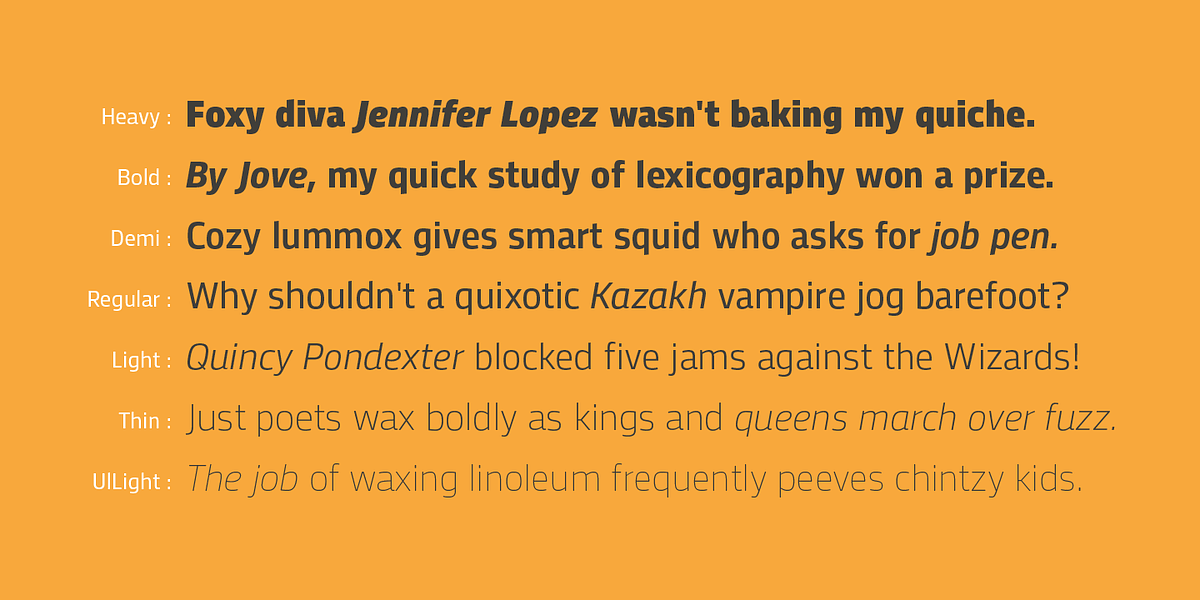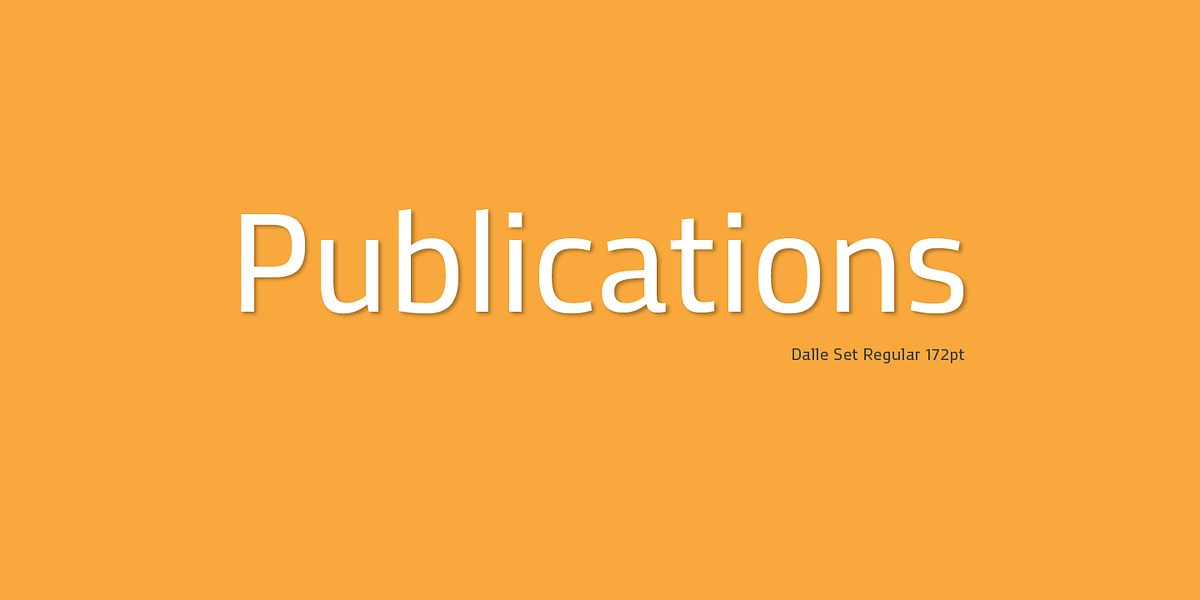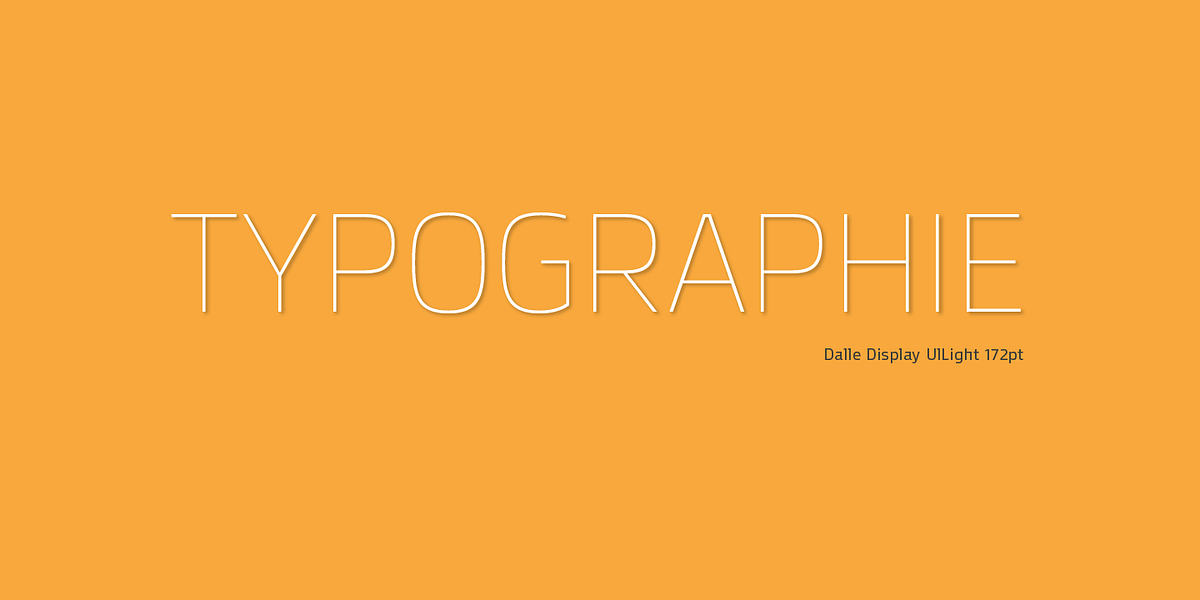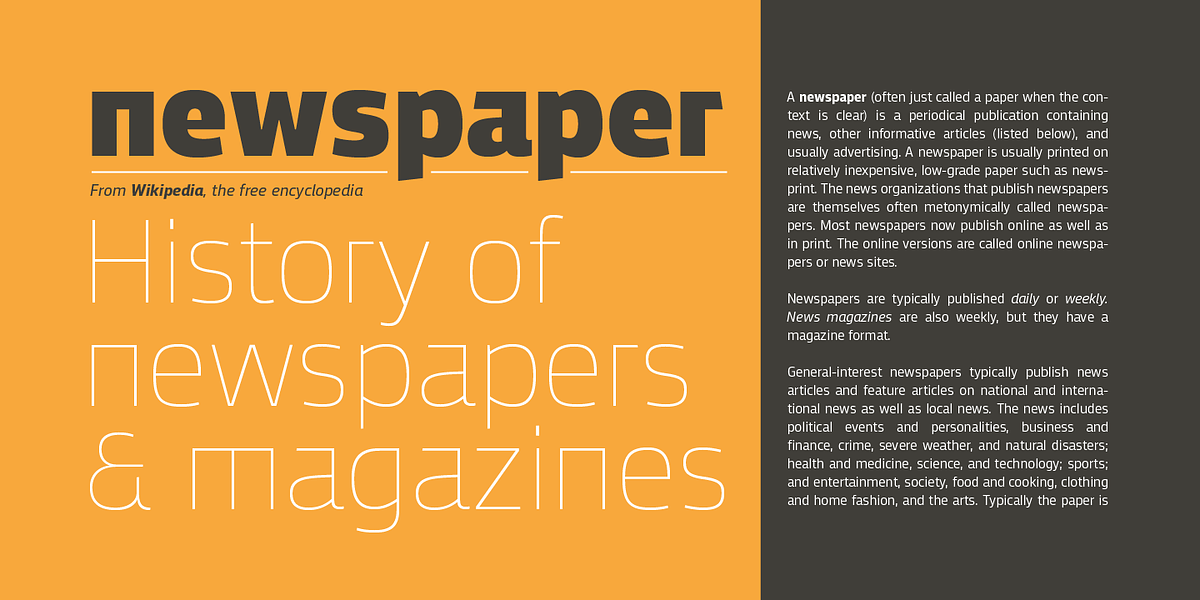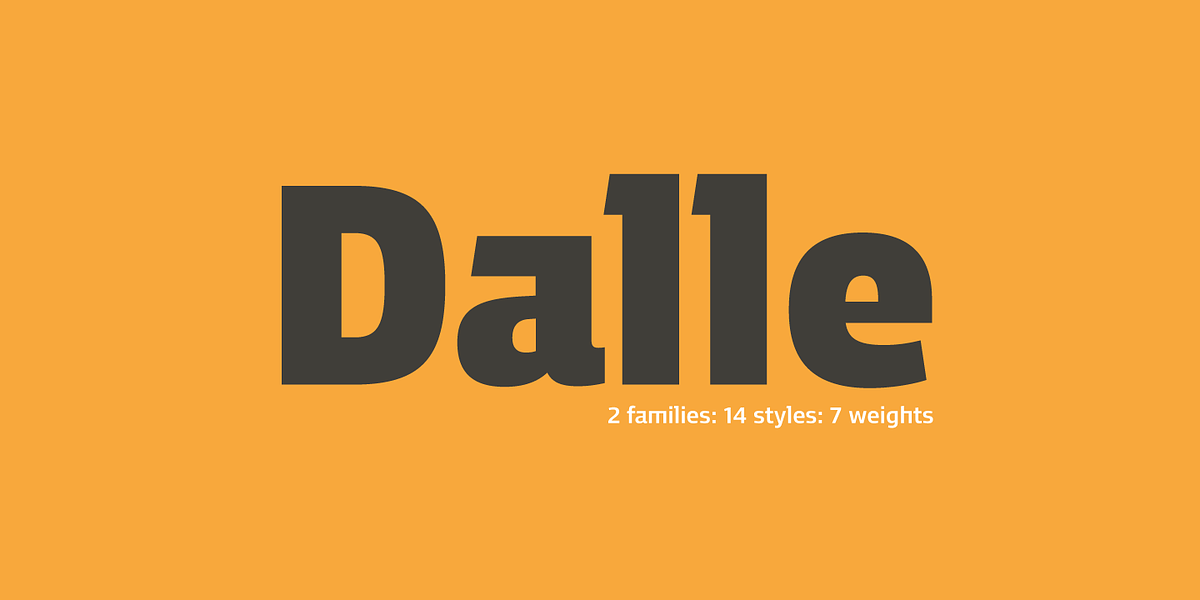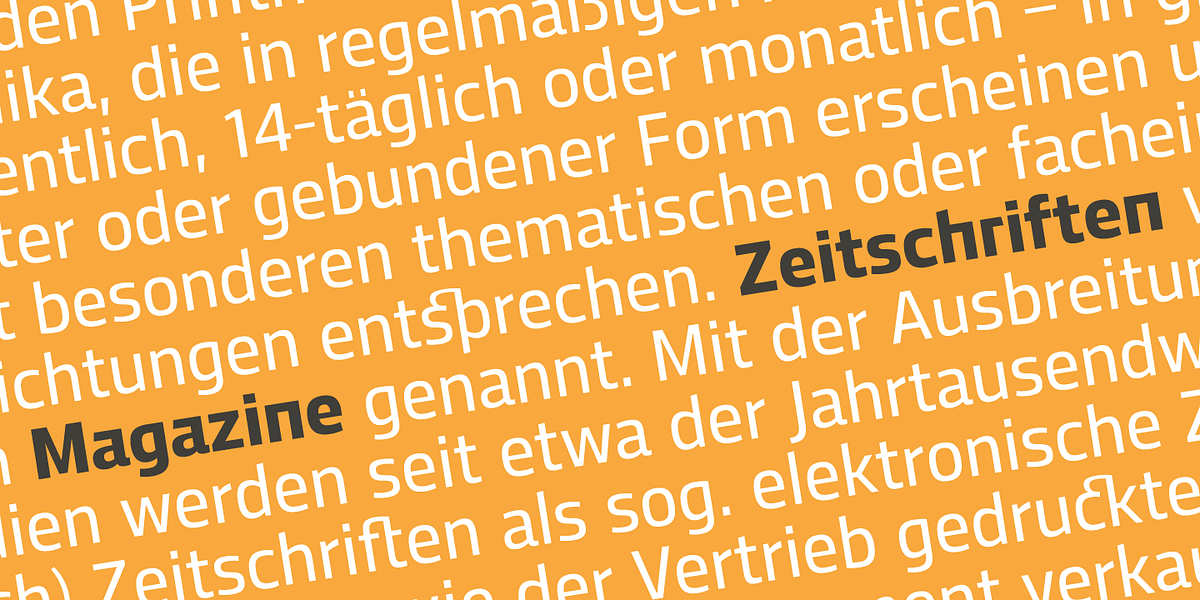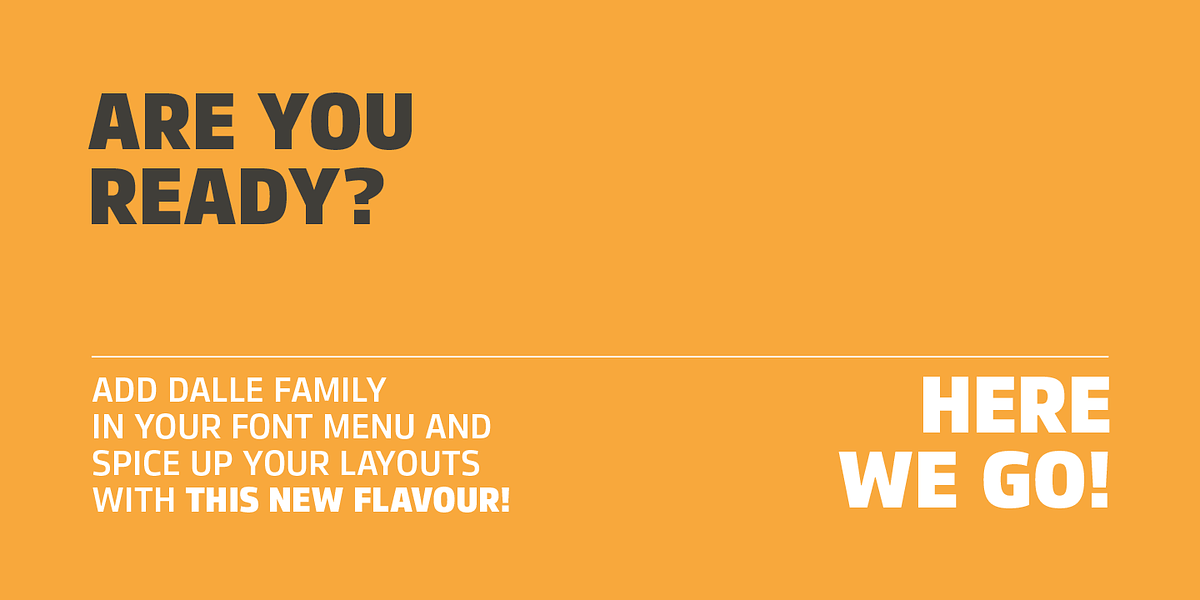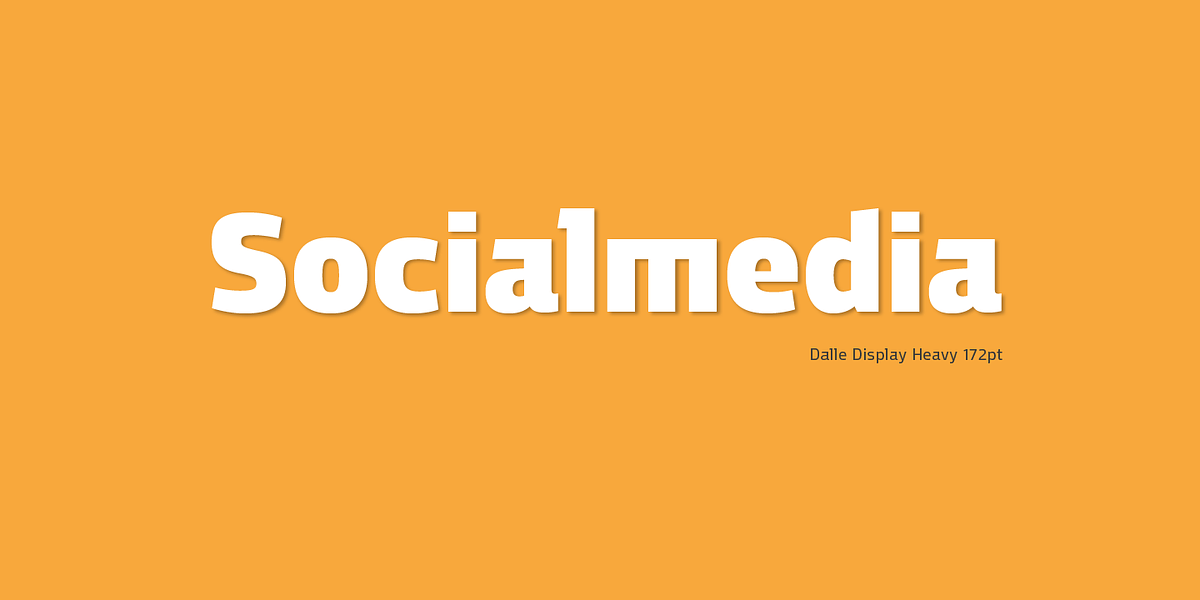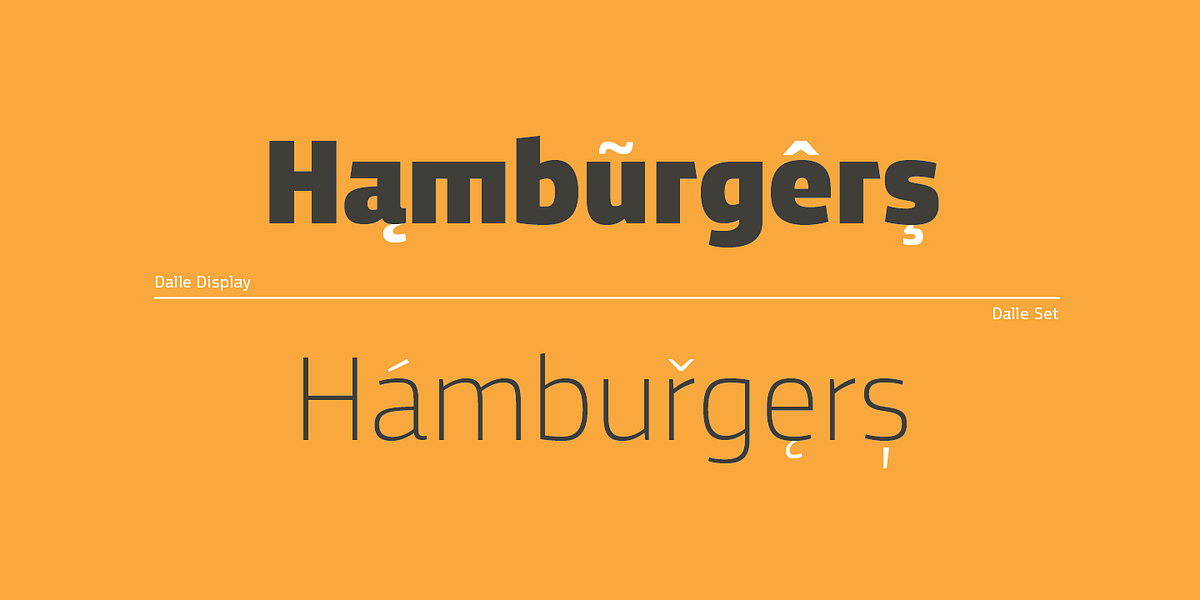
Dalle
Dalle is a neo-humanist sans serif typeface designed by Stawix Ruecha in 2012. It features OpenType support including multi-ligatures and tabular figures, making it suitable for both body text and display purposes.